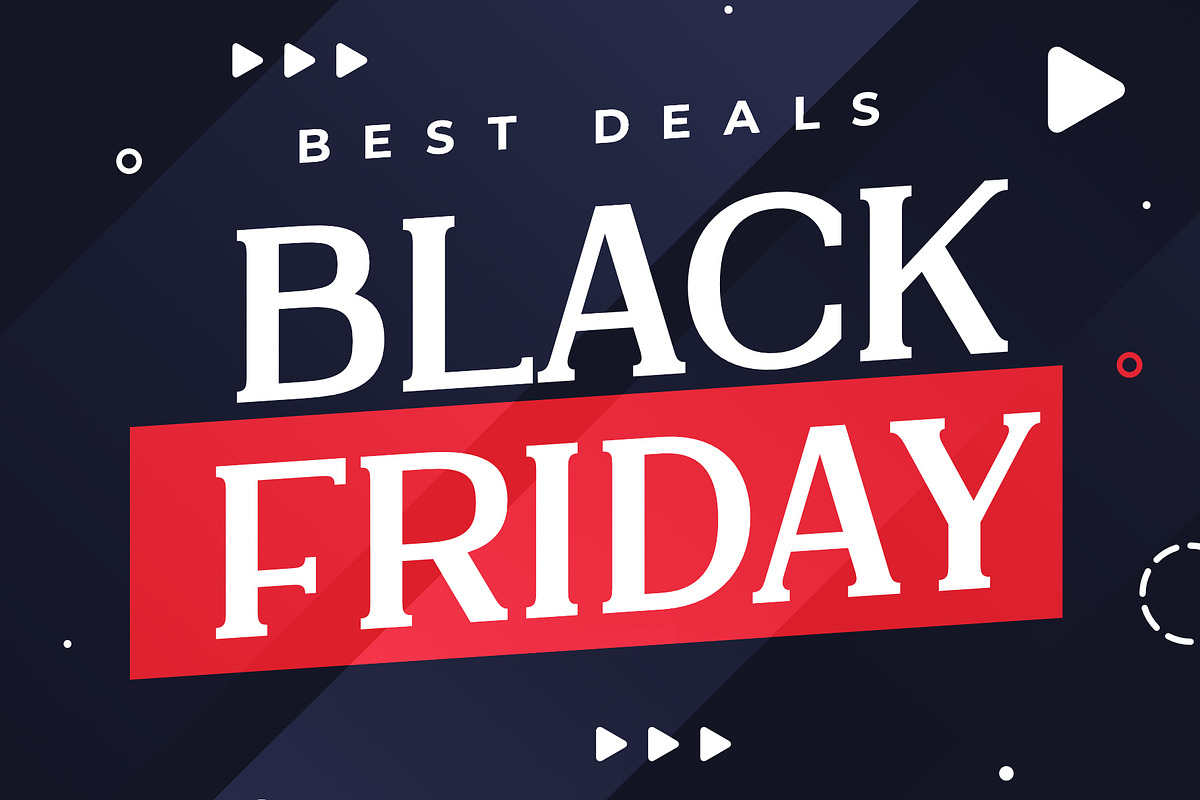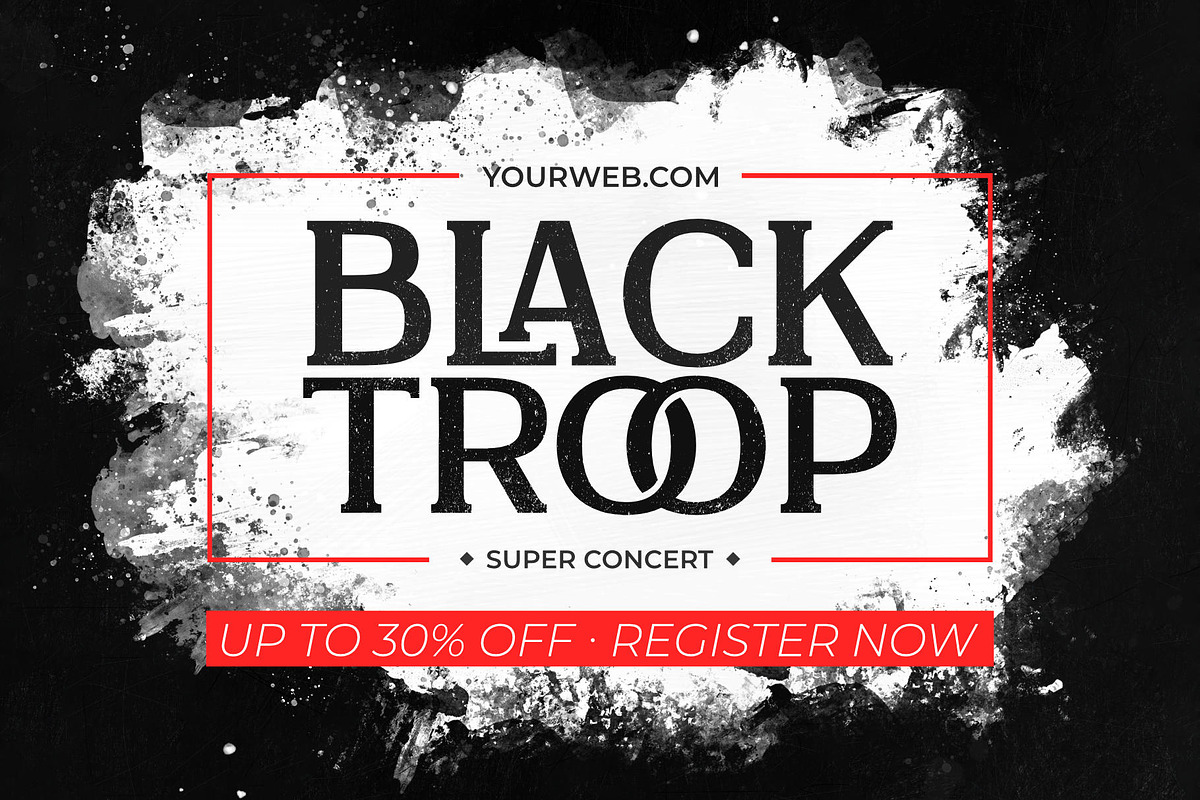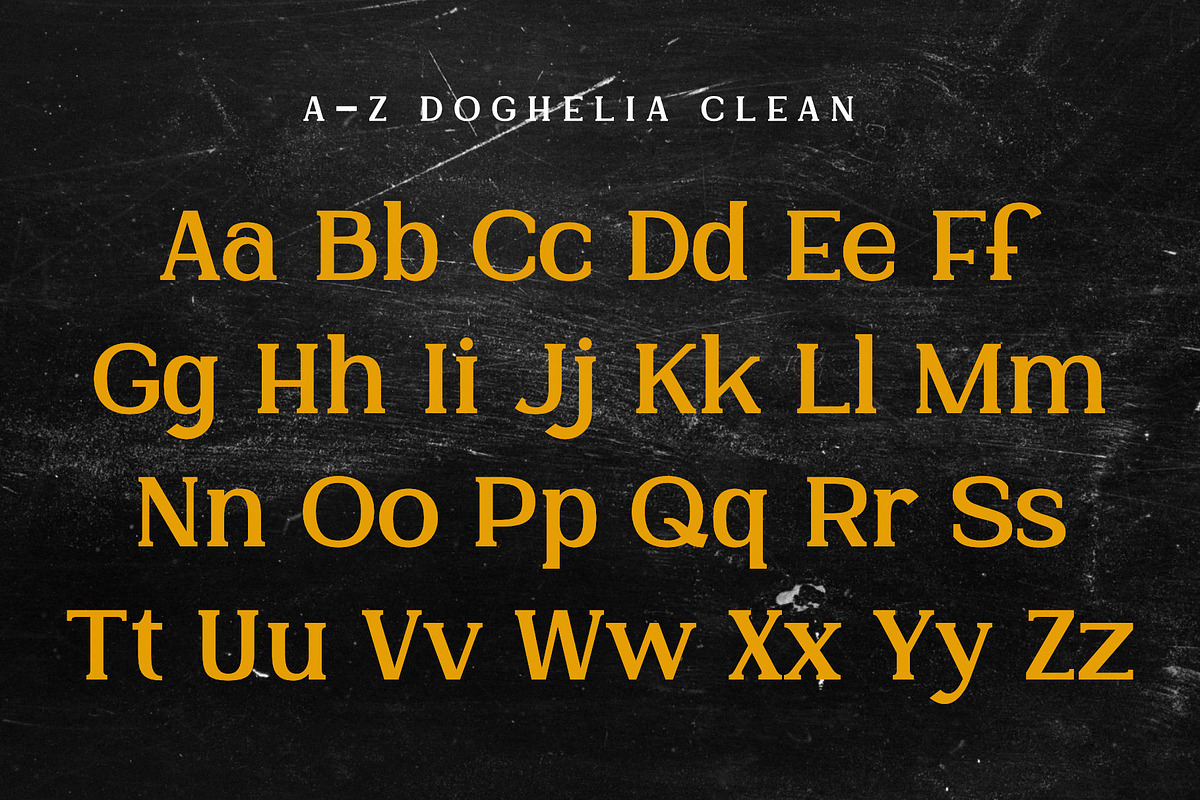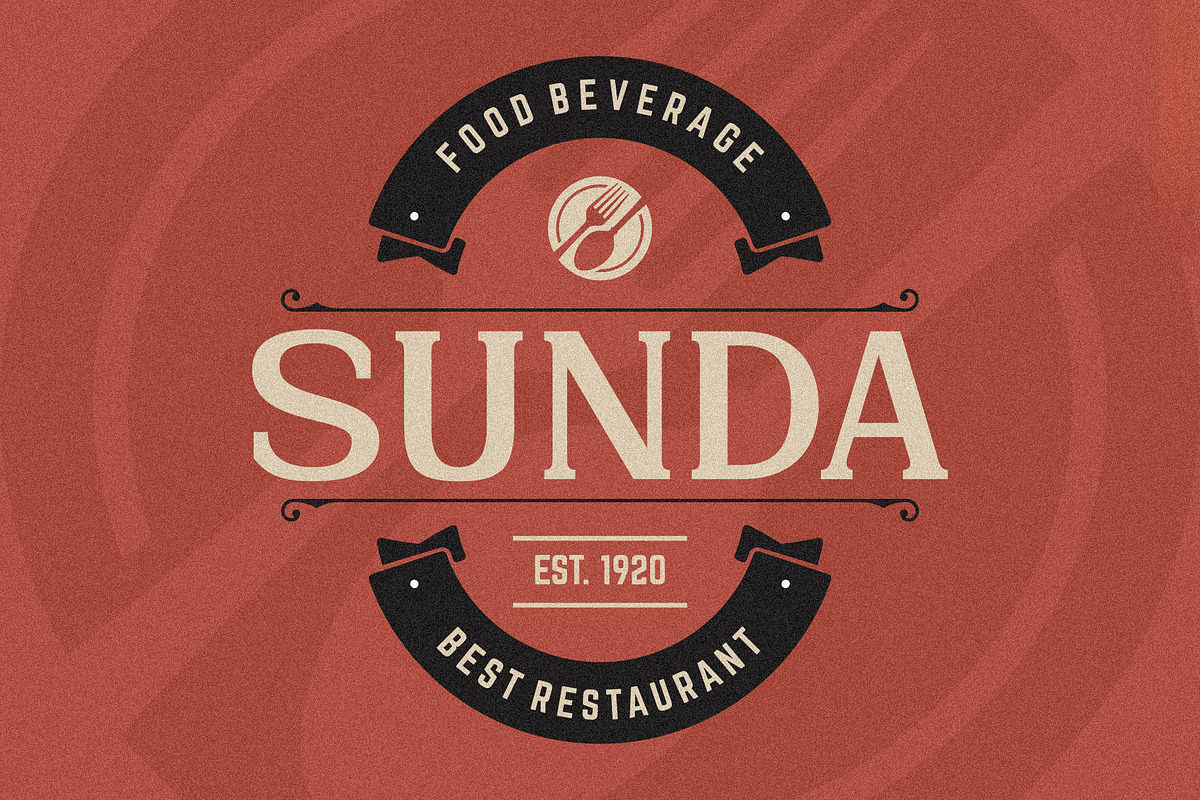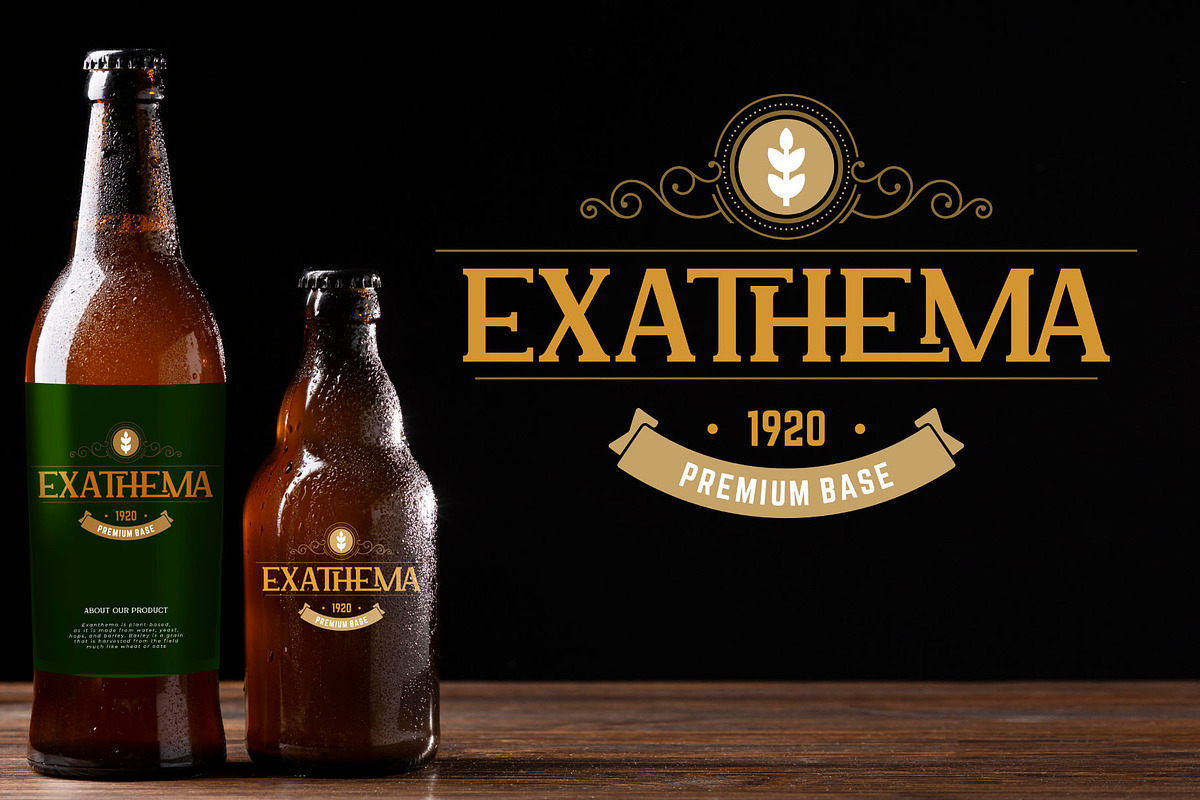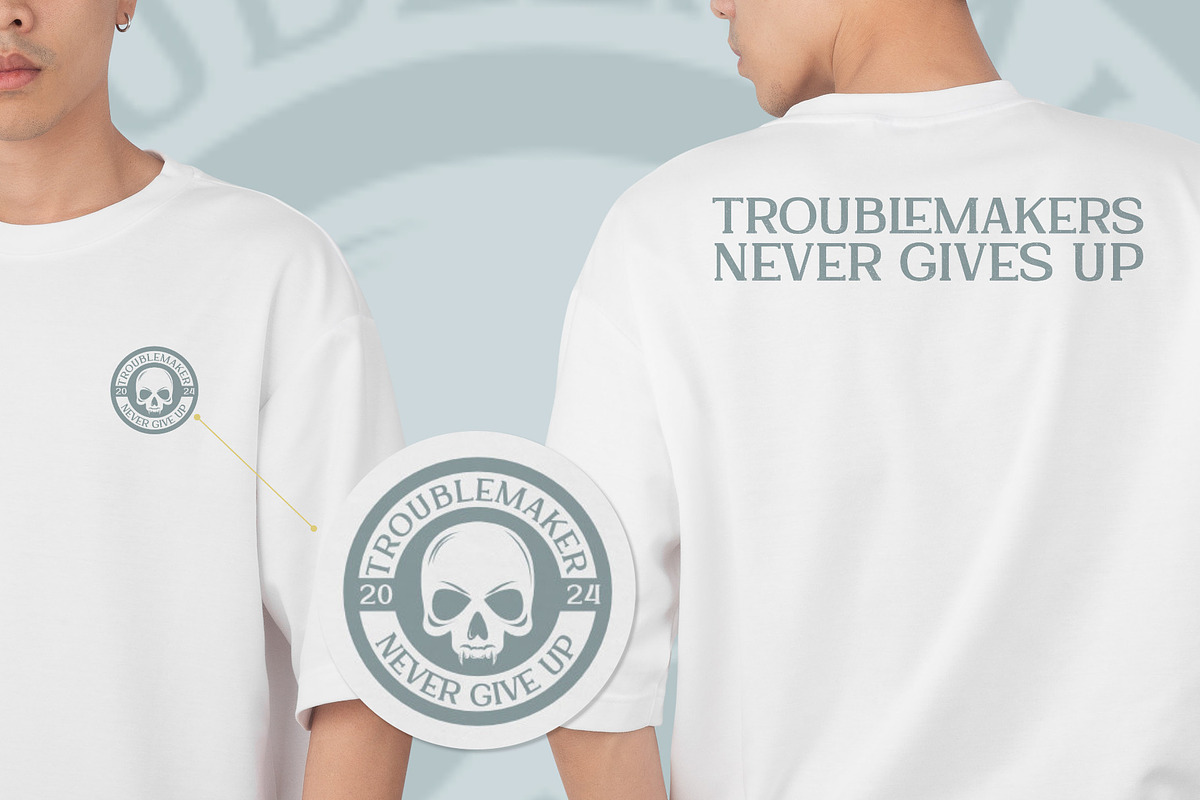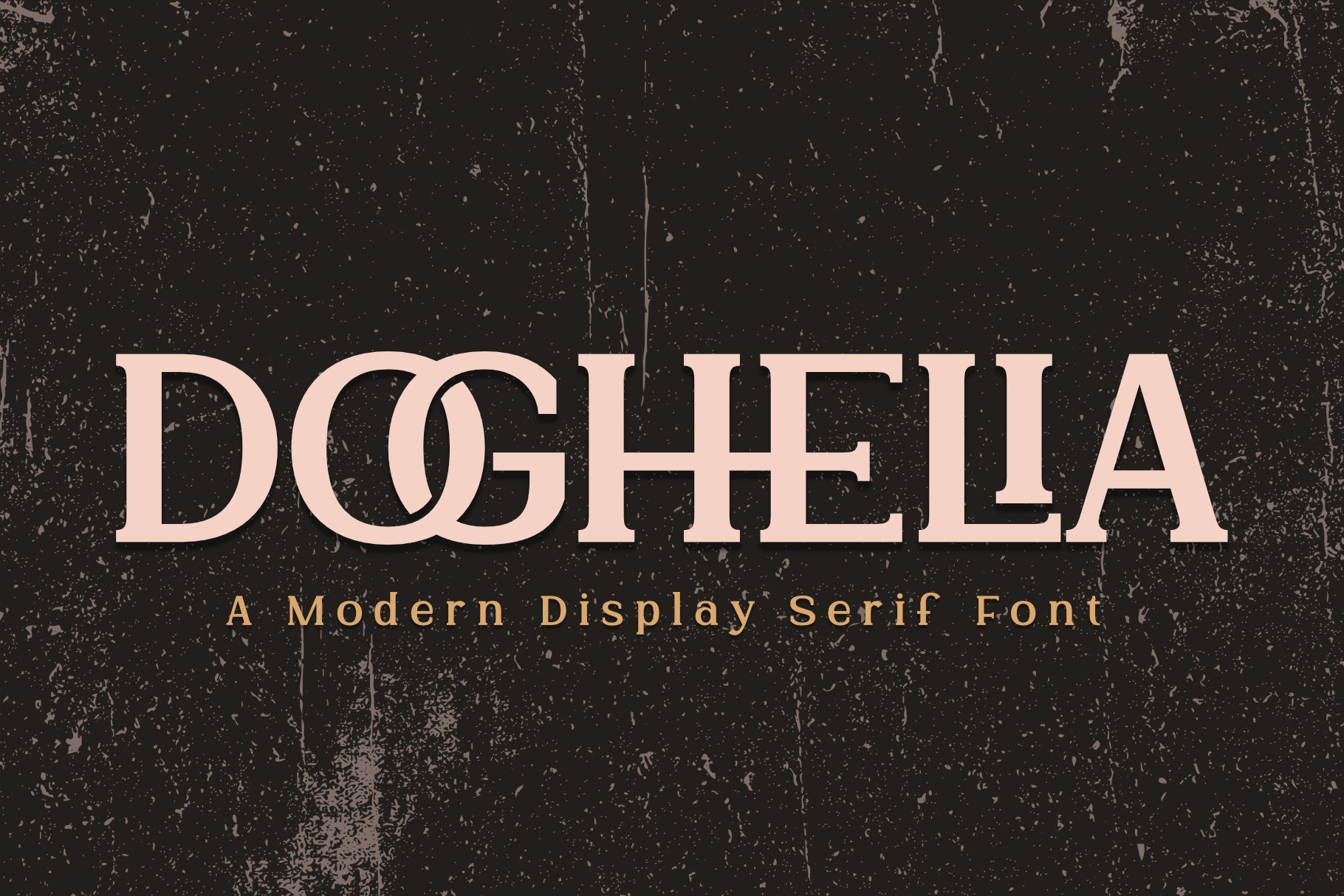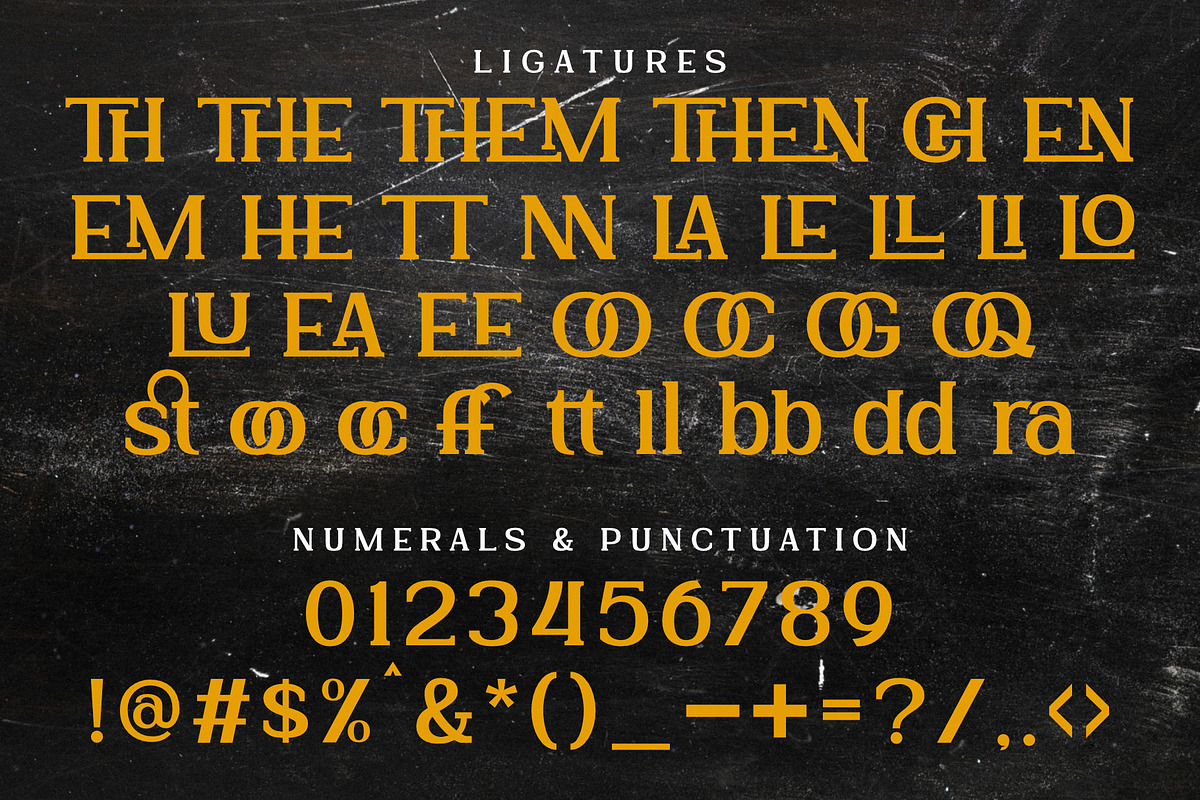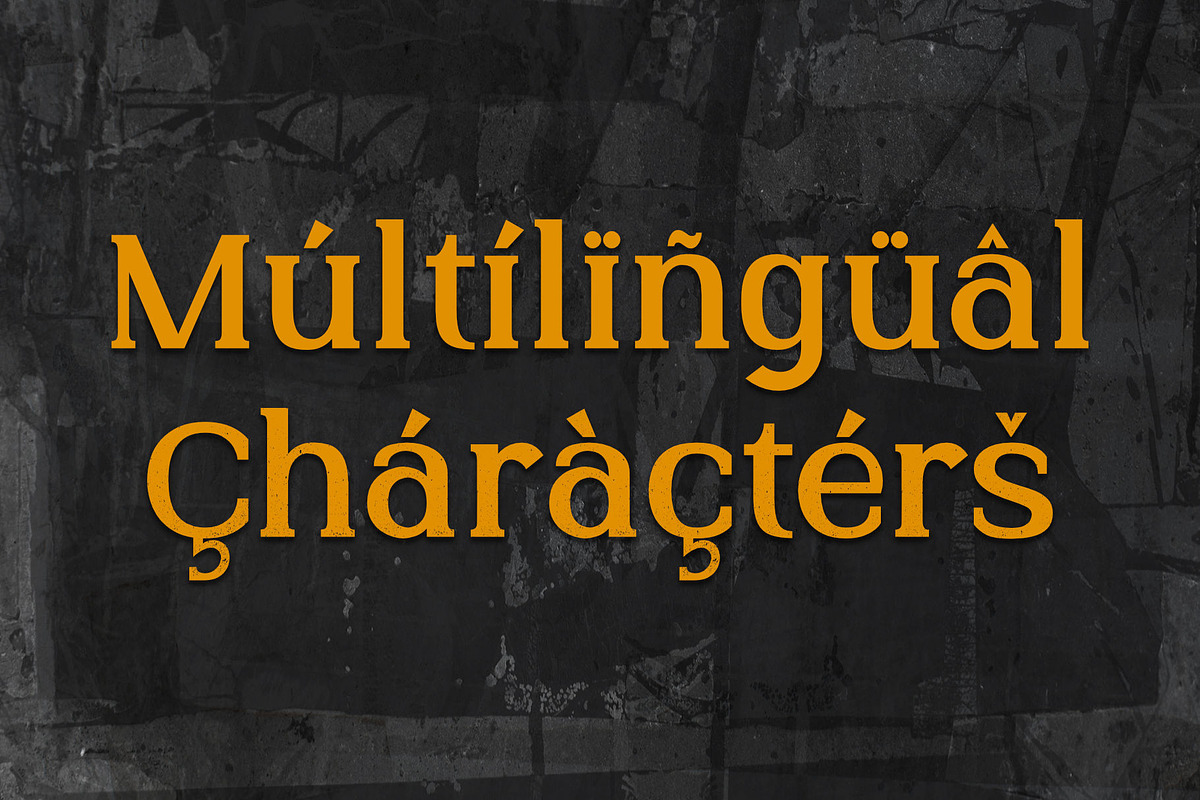
Doghelia | A Modern Serif Font
Doghelia is a captivating and modern bold serif display font that exudes confidence and style. Its strong, chunky serifs and clean lines make a powerful statement, perfect for designs that demand attention. With a touch of contemporary flair, Doghelia is both sophisticated and approachable.
One of Doghelia’s key features is its extensive collection of ligatures, offering a unique and elegant way to connect letters and create a seamless flow. These ligatures are not just a design element; they are a tool for creativity, allowing you to craft unique and memorable typography.
This font is a versatile powerhouse, making it ideal for a wide range of applications. Whether you’re designing a striking logotype, developing a cohesive branding identity, or creating eye-catching headlines, Doghelia’s distinct personality will elevate your work. Its bold presence ensures that your message is delivered with impact, while its refined details add a touch of class. Doghelia is more than just a font; it’s a statement of modern design and a testament to the power of bold typography.